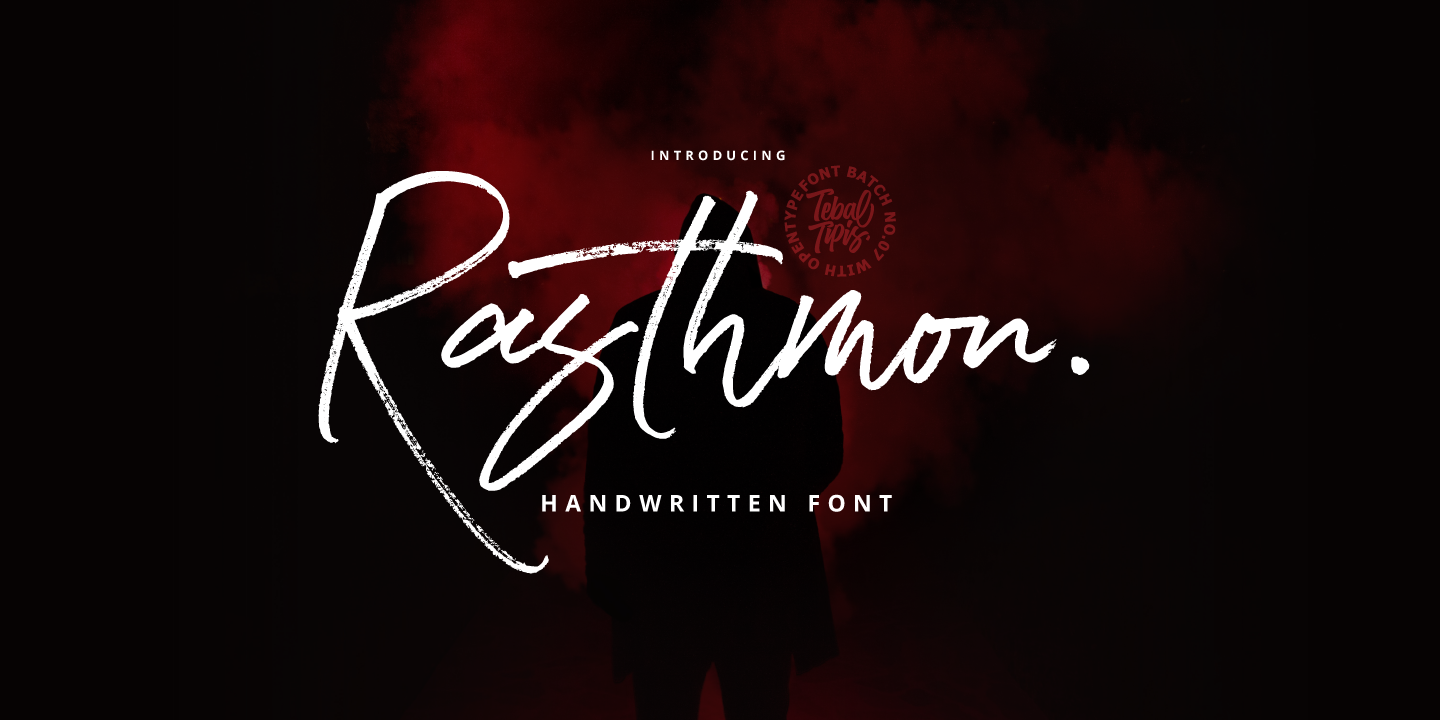
The Rasthmon Brush Font excels in various design applications including artistic street art branding, creative graffiti-inspired marketing, expressive urban culture communications, dynamic art studio signage, bold creative agency identities, energetic music festival promotions, authentic hand-painted sign reproduction, artistic brush lettering projects, expressive street fashion brands, and vibrant creative projects that demand brushstroke authenticity and urban sophistication.
What makes the Rasthmon Brush Font exciting is its authentic capture of hand-painted brushwork and street art energy through letterforms that embody the raw creativity and expressive freedom of urban artistic culture. This typeface demonstrates exceptional character through carefully crafted strokes that suggest the flowing movement of brush painting, the spontaneous energy of street art creation, and the authentic handmade quality that makes brush lettering so compelling and visually dynamic. The font's artistic personality makes it perfect for creative agencies and urban brands seeking to communicate authentic artistry, creative expression, and the kind of raw artistic energy that connects with contemporary street culture through typography that literally flows with brush-painted authenticity.
The Rasthmon Brush Font family typically includes expressive weight variations that enhance the hand-painted aesthetic, featuring organic brush strokes and extended character sets optimized for artistic communications and creative applications. These family options often include brush-inspired alternates, street art symbols, and organic decorative elements that provide designers with comprehensive tools for creating authentically artistic typography that celebrates urban creativity while maintaining contemporary design appeal and street culture credibility.
Creative professionals and urban lifestyle brands consistently select Rasthmon Brush Font Free Download for projects requiring typography that communicates artistic authenticity and street culture energy. This typeface delivers exceptional performance in creative marketing, artistic branding, and urban communications where establishing authentic street credibility and demonstrating genuine artistic expression is essential for cultural connection. The font's brush character makes it particularly effective for music and fashion applications. Download Rasthmon Brush Font Free Download today to access this expressive typeface that transforms artistic communications with its brush-painted energy and urban sophistication, creating compelling street culture experiences that honor the authentic artistry of hand-painted lettering while celebrating the creative freedom that defines genuine urban artistic expression.